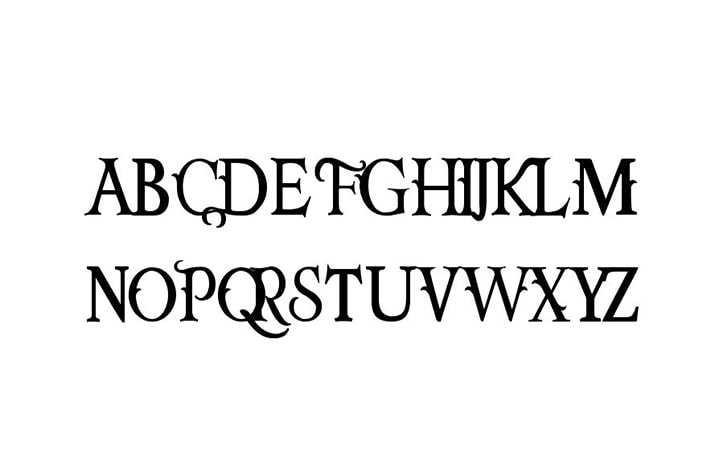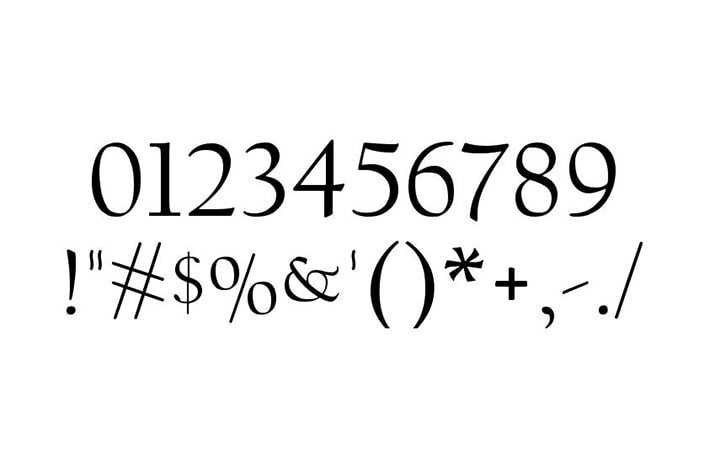
Today we are introducing you to a Christmas font family Navidad Font. FZ Fonts Foundry took charge of creating and sharing it for the first time on May 25, 2010.
And it was designed by Fern Fernandez. The entire typeface features a wonderful lively surface and fancy layout.
This font helps many designers to delight their customers. With deep features as well as an attractive appearance, it supports almost all popular languages.
This different typeface includes everything a designer needs. In this way, it will be suitable for a perfect text style pair.
| Font Name: | Navidad Font Family |
| Style: | Disney, Brush, Display |
| Font Designer: | FZ Fonts |
This typeface is best for various design work purposes. You can also use it for various planning purposes. Add sparkle to things like logo designs, book covers, quotes sites, invitation cards, business cards, birthday cards, certificates or awards, and many other related things.
This font family has come only in regular style along with 113 characters. While Glyphs of the typeface have 241 and Units per em are 2048.
Moreover, the exquisite punctuation and unusual symbols also add to the beauty of this modest font.